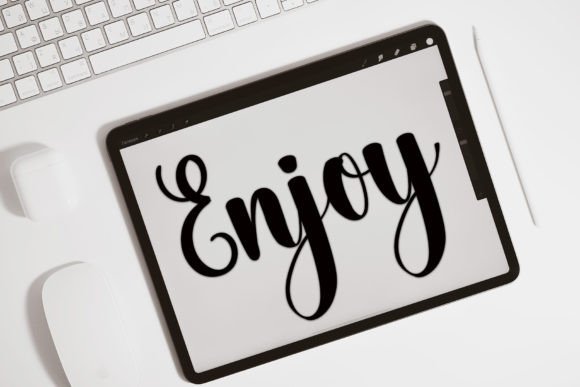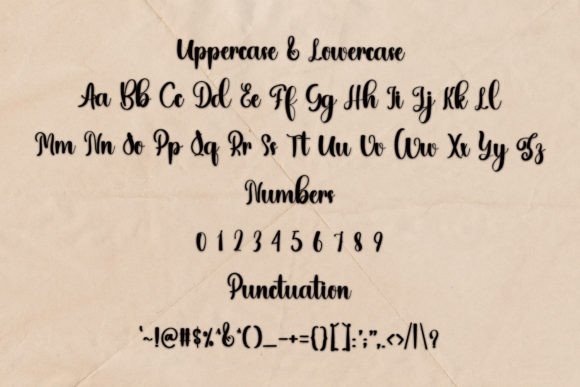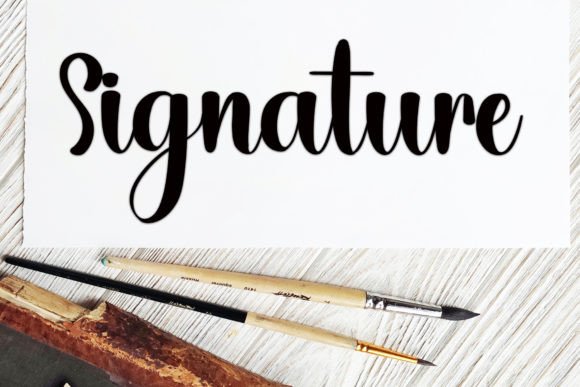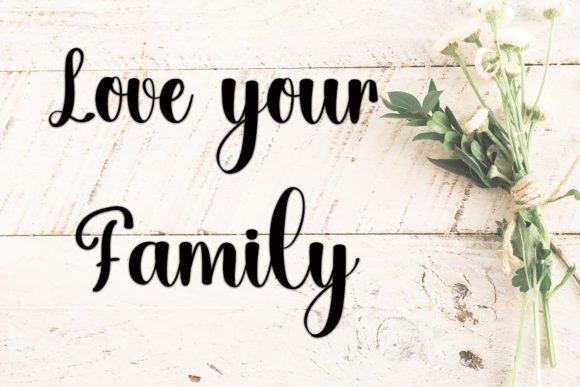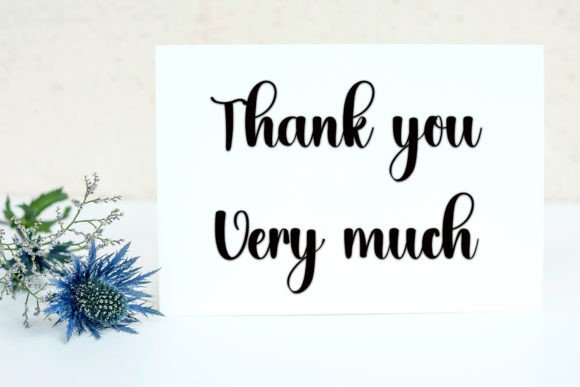
Introducing Hello Bulky Font: Elevate Your Designs with Elegance
Hello Bulky Font is a stunning, handwritten typeface that adds a touch of sophistication to any project. Its unique blend of elegance and charm makes it the perfect choice for designers and crafters looking to create visually appealing designs. In this article, we’ll dive into the world of Hello Bulky Font, exploring its features, benefits, and uses, as well as providing tips on how to make the most of this beautiful font.
A Beautifully Crafted Font
Hello Bulky is a neat and beautiful handwritten font, described by an elegant touch, perfect for your favorite projects. Its incredibly distinct and timeless style is sure to capture the hearts of designers and crafters alike. The font’s elegant and refined aesthetic makes it suitable for a wide range of applications, from wedding invitations and branding materials to social media graphics and blog posts.
Key Features of Hello Bulky Font
• Elegant and Refined Aesthetic: Hello Bulky Font boasts a sophisticated and luxurious look, perfect for high-end designs and projects that require a touch of class.
• Handwritten with Love: The font’s handwritten nature gives it a personal and unique feel, making it perfect for designs that require a touch of warmth and personality.
• Distinct and Timeless Style: Hello Bulky Font’s classic and timeless design ensures that your projects will stand the test of time, remaining stylish and relevant for years to come.
• Versatile and Adaptable: The font’s versatility makes it suitable for a wide range of applications, from digital designs to print materials.
Benefits of Using Hello Bulky Font
• Instant Recognition: Hello Bulky Font’s unique and elegant design ensures that your projects will stand out from the crowd, grabbing the attention of your audience and leaving a lasting impression.
• Professional and Polished Look: The font’s refined aesthetic gives your designs a professional and polished look, perfect for businesses and individuals looking to establish a strong brand identity.
• Easy to Read and Understand: Despite its elegant and refined nature, Hello Bulky Font remains highly legible, ensuring that your message is conveyed clearly and effectively.
• Use for Headings and Titles: Hello Bulky Font is perfect for headings and titles, adding a touch of elegance and sophistication to your designs.
Hello Bulky Font is a beautiful and elegant handwritten typeface that is sure to elevate your designs to new heights. Its unique blend of sophistication and charm makes it the perfect choice for designers and crafters looking to create visually appealing designs. With its versatility, legibility, and timeless style, Hello Bulky Font is an excellent addition to any designer’s toolkit.